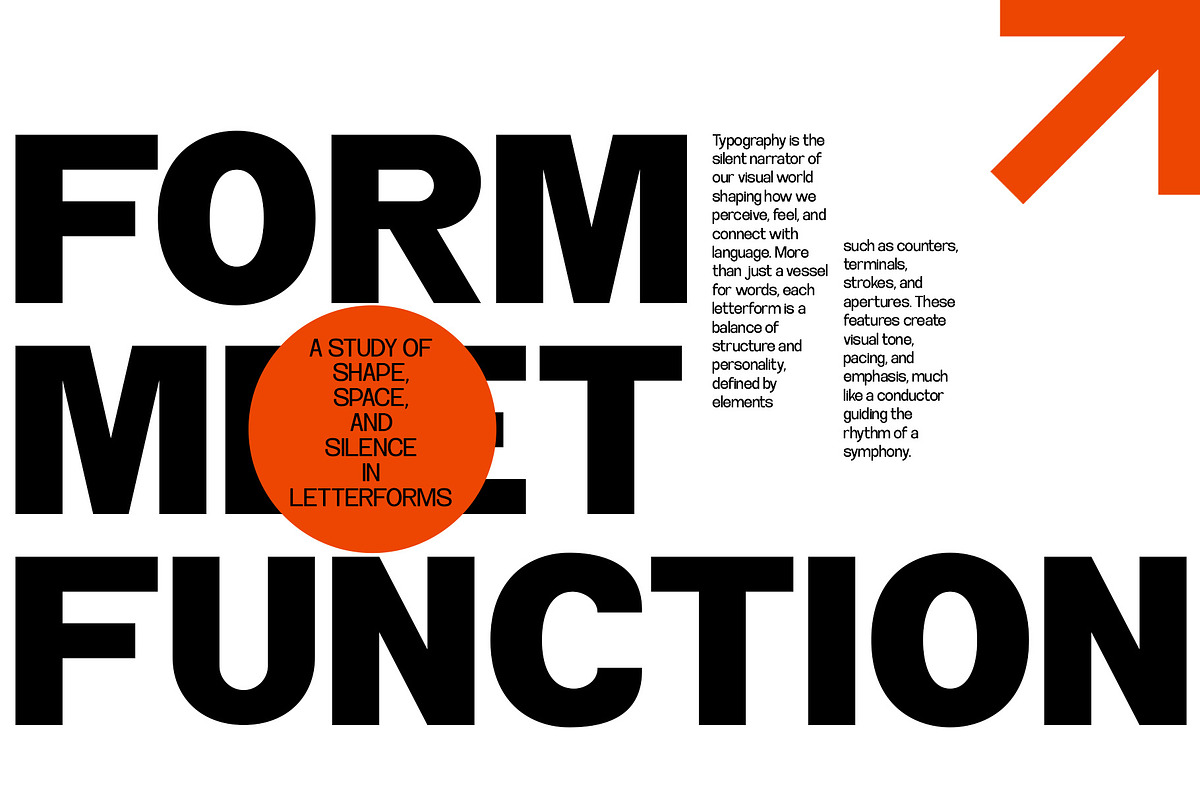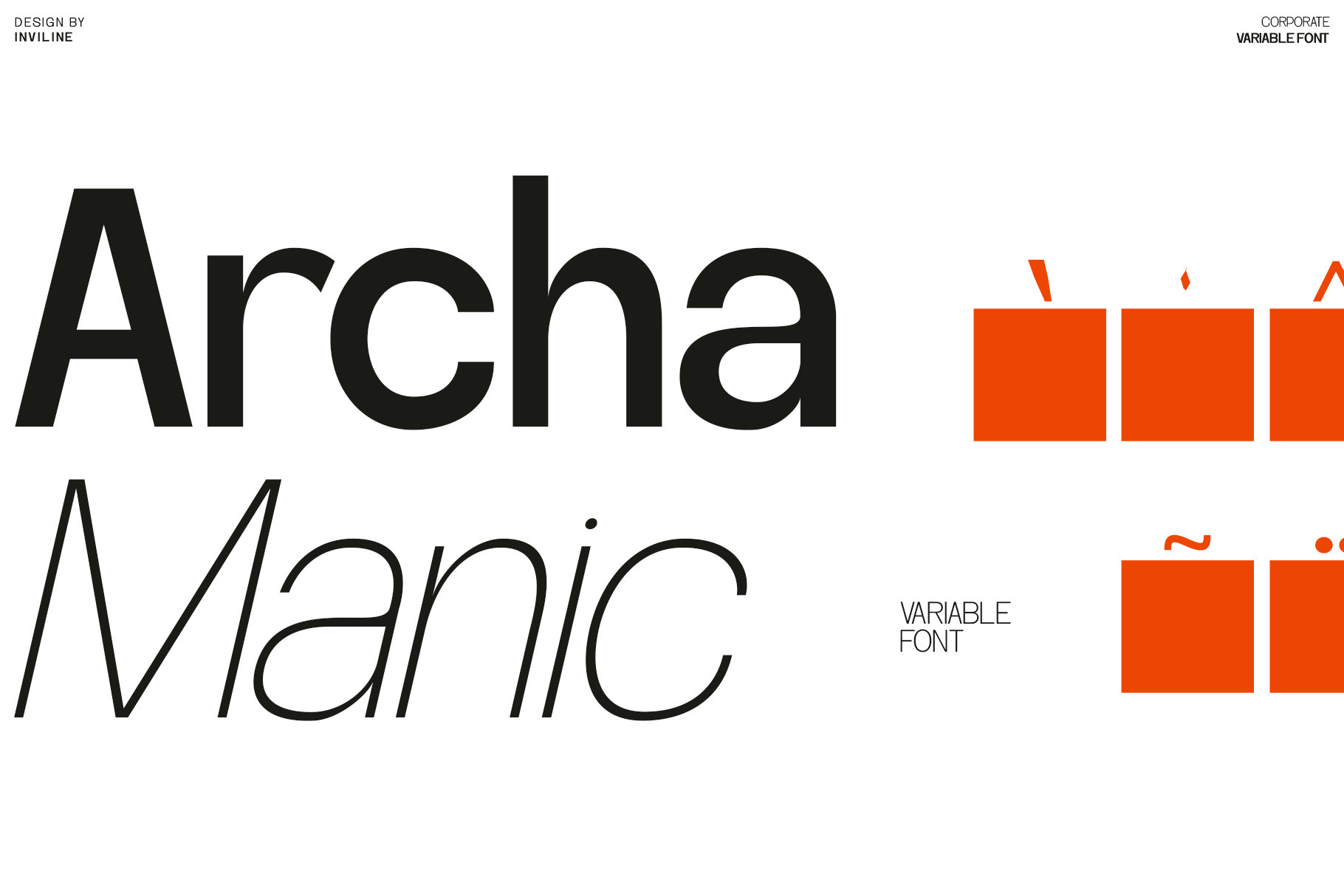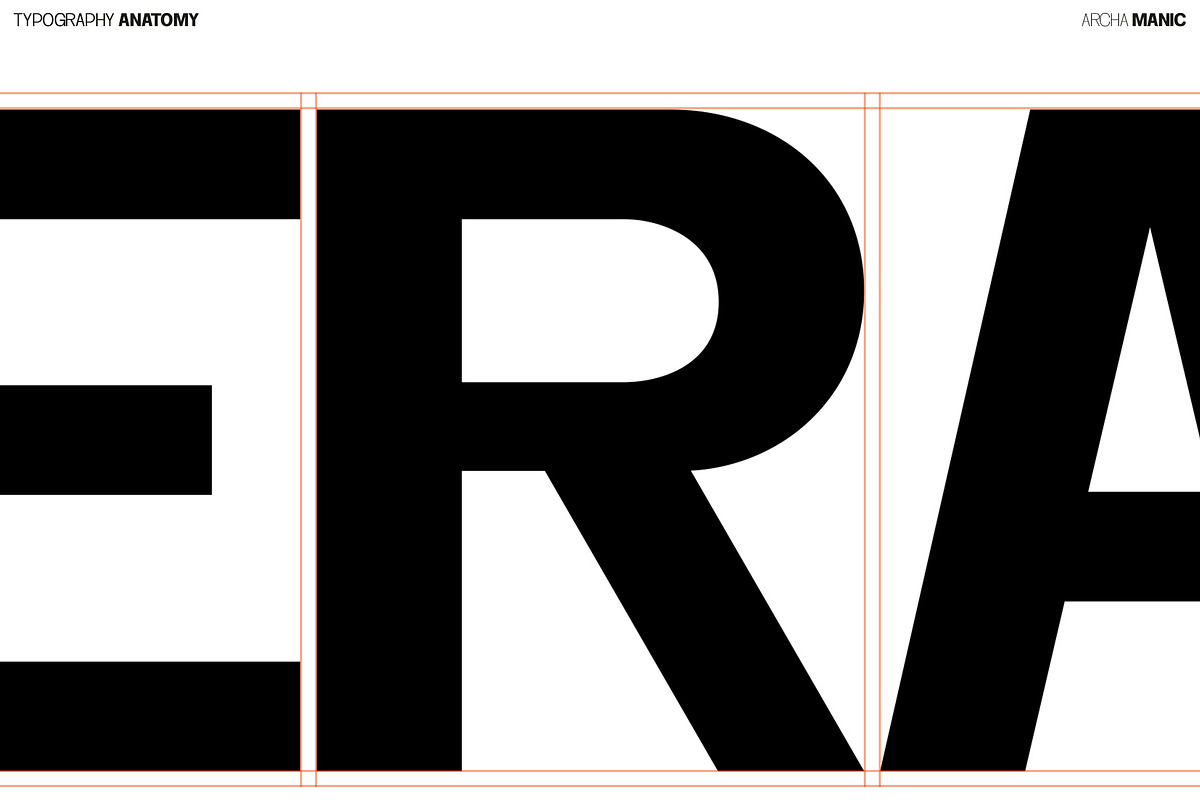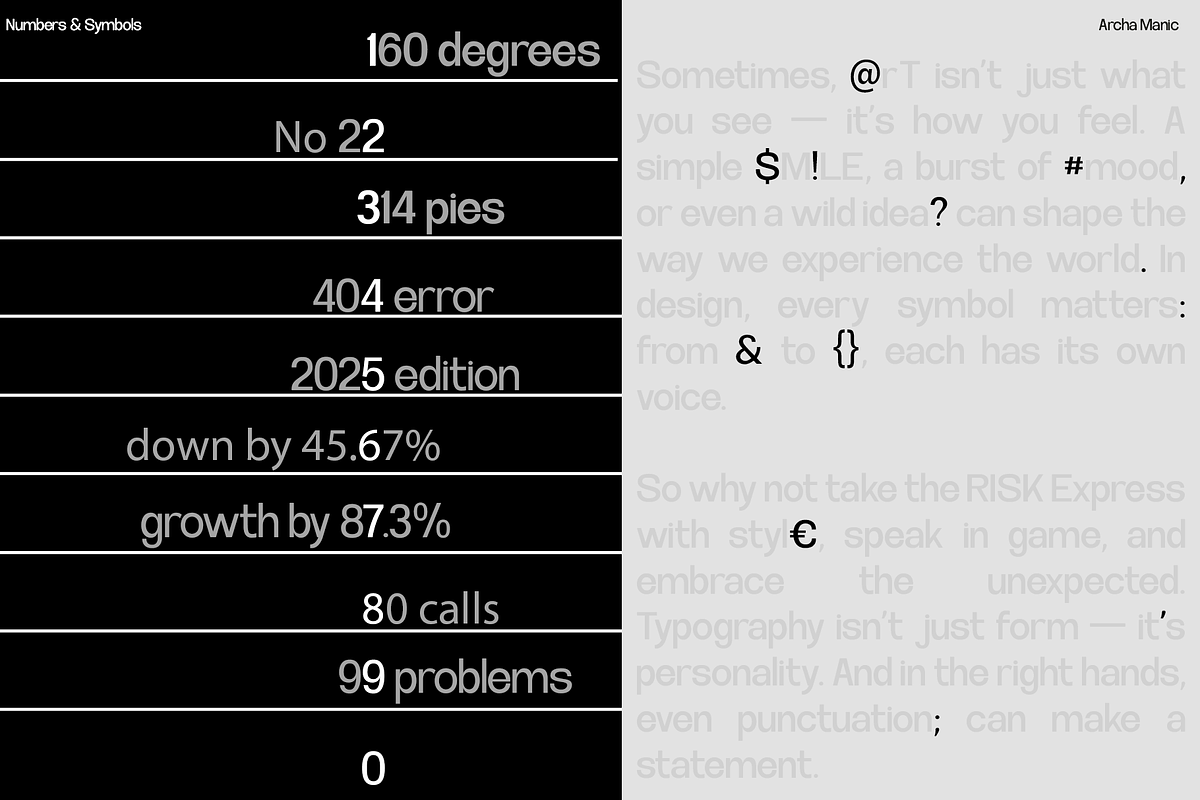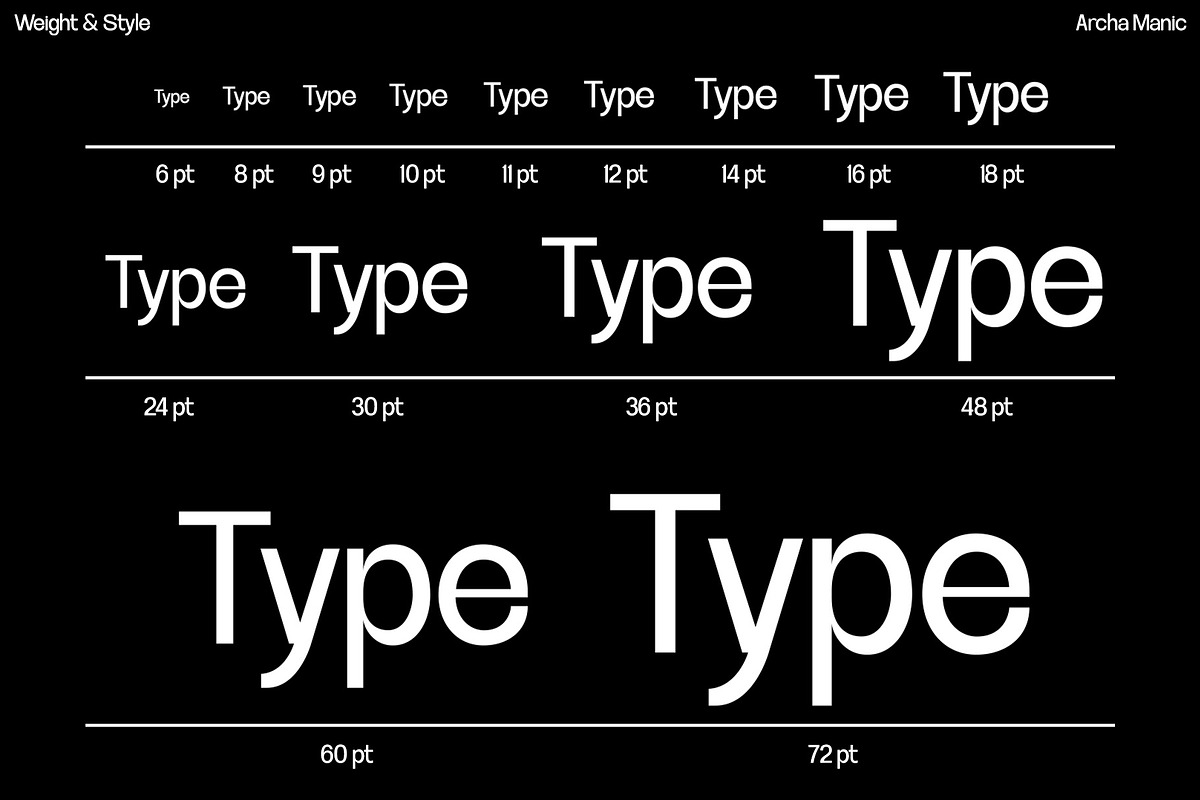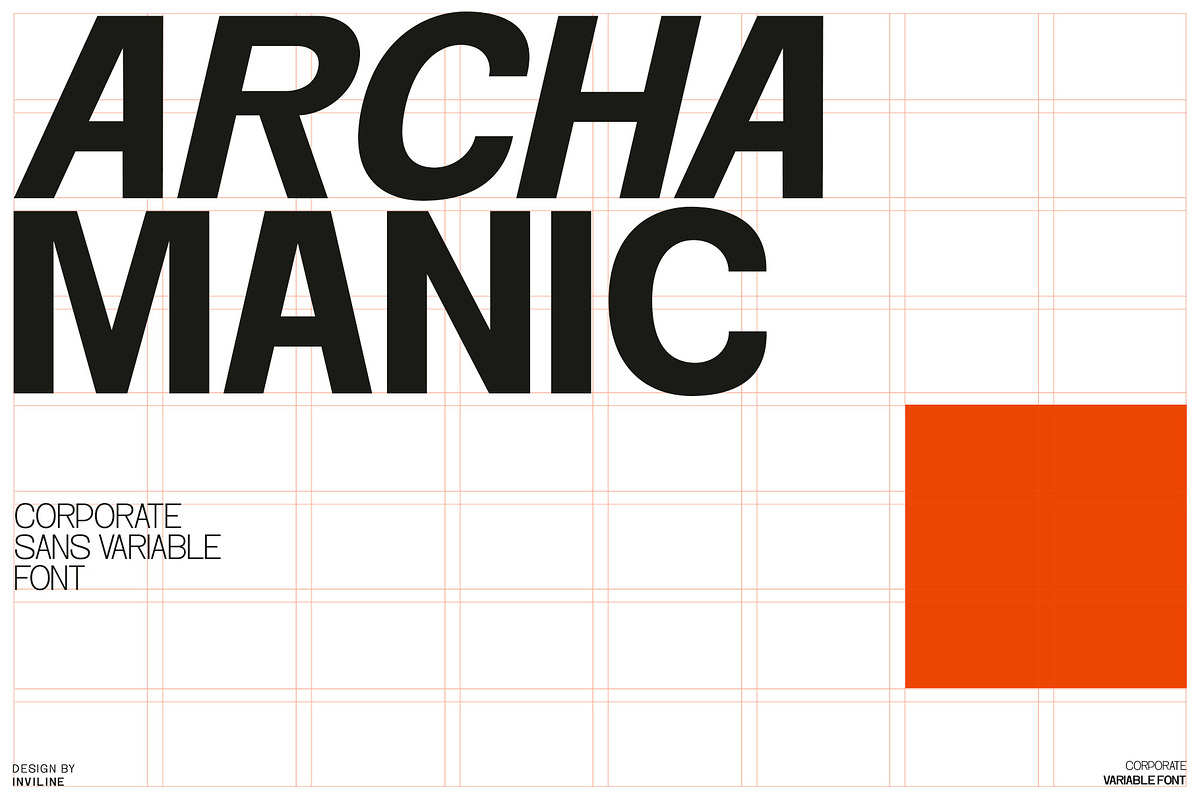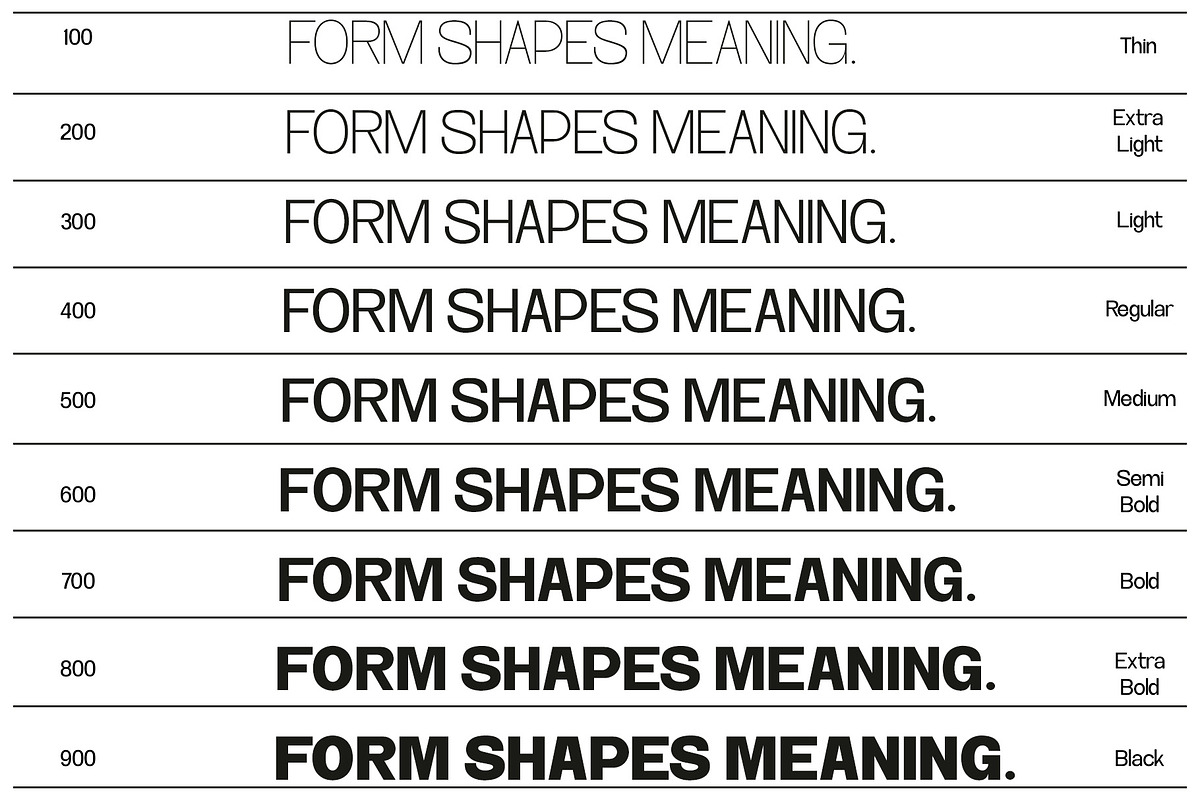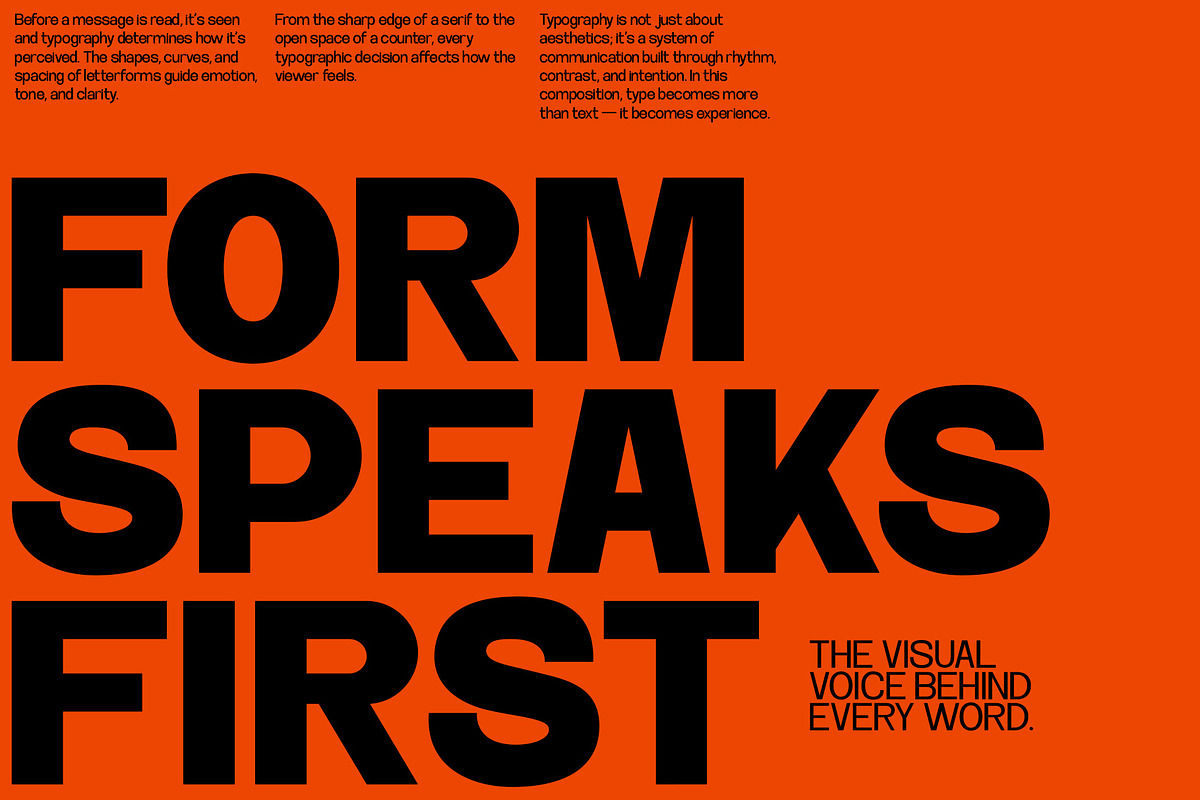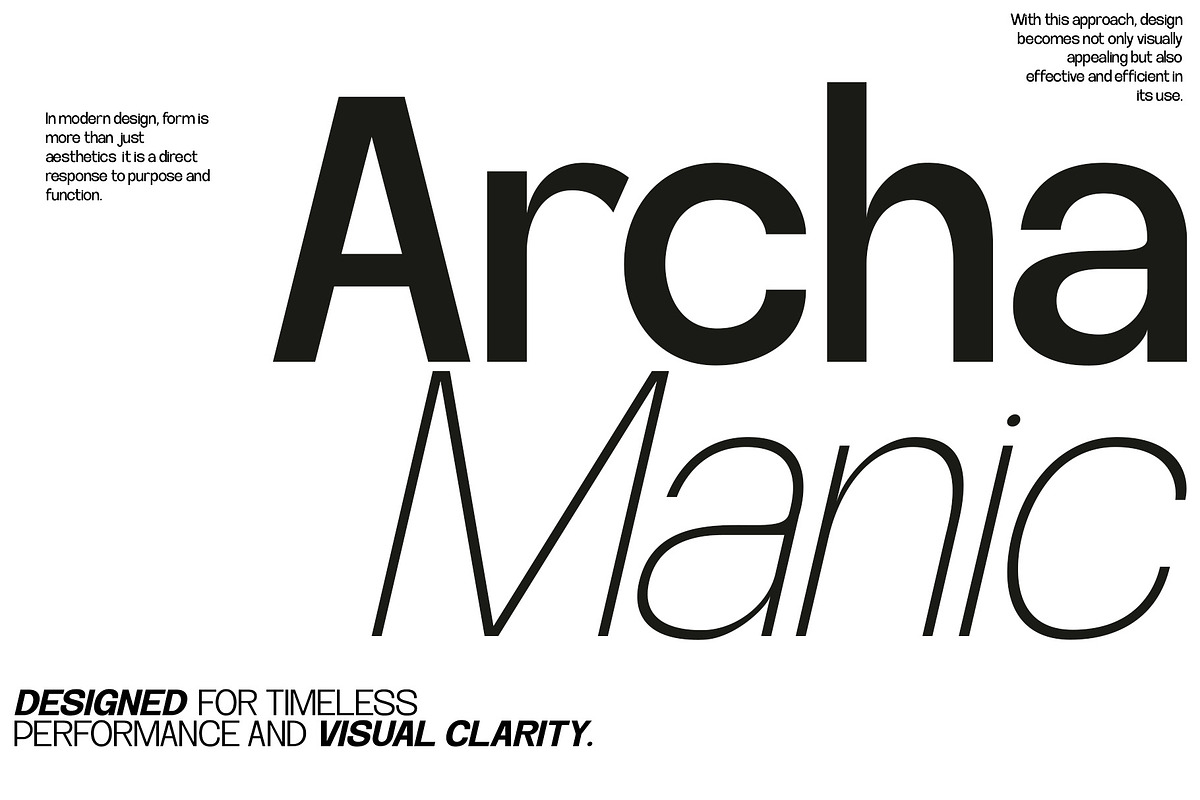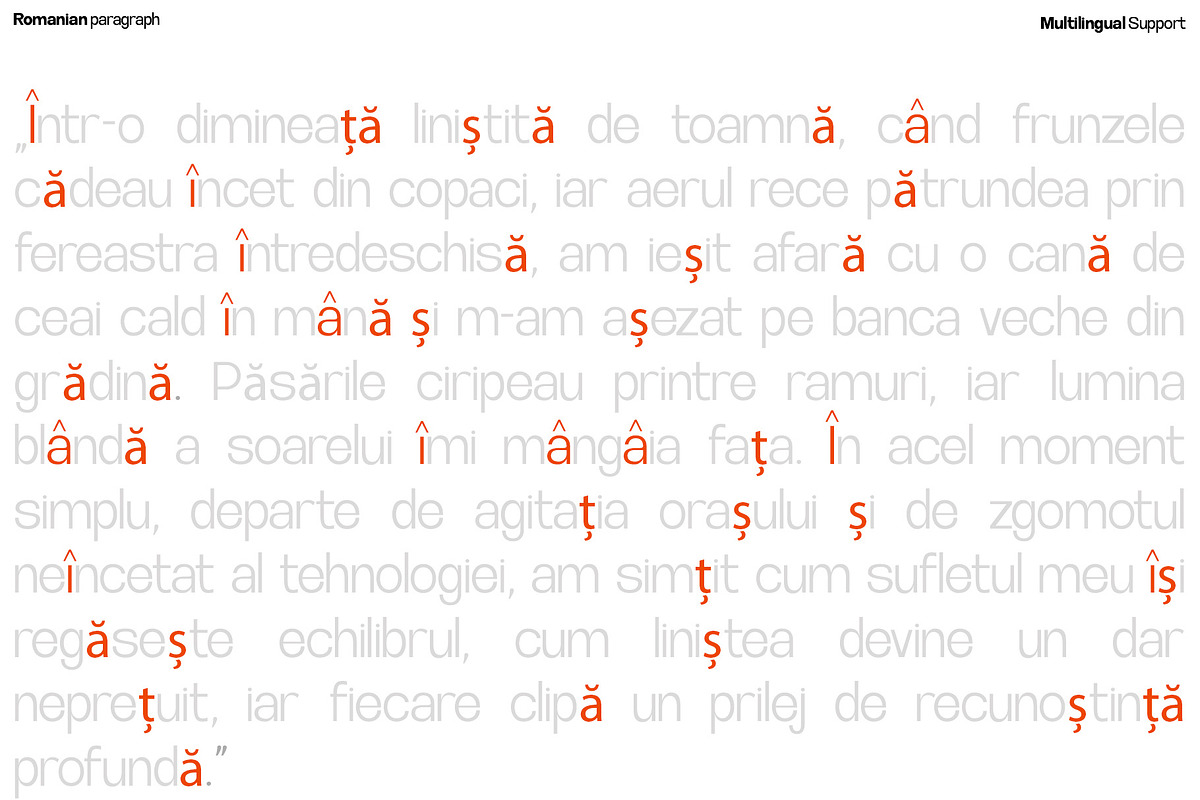
Archa Manic - Variable Sans Font
Archa Manic is a clean and structured variable sans serif typeface designed for clarity, confidence, and contemporary communication. Its balanced proportions, neutral construction, and flexible weight range create a professional typographic system suitable for both corporate and creative applications.
Inspired by modern editorial design, architectural graphics, and international corporate typography, Archa Manic delivers a polished visual voice without feeling overly rigid or generic.
Overview
Archa Manic combines precise geometric construction with subtle humanist details. Its open letterforms, smooth curves, and controlled spacing support clear readability across headlines, brand identities, presentations, and digital interfaces.
The variable font system allows designers to adjust the available weight range from lighter, refined typography to bold and impactful display text. This flexibility makes Archa Manic suitable for building complete typographic hierarchies within one coordinated font family.
Use lighter settings for elegant editorial compositions and supporting information, or heavier settings for logos, posters, titles, and prominent campaign messages.
Archa Manic variable sans serif font
Contemporary corporate sans serif design
Variable font functionality
Flexible adjustable weight range
Clean and structured letterforms
Balanced geometric proportions
Neutral yet recognizable personality
Complete numerals
Standard symbols and punctuation
Strong readability across multiple sizes
Suitable for display and supporting typography
Effective for print and digital applications
Designed for professional typographic hierarchies
Works well with grid-based layouts
Easy to pair with serif, script, and experimental fonts
Suitable for branding, editorial, UI, and presentation design
Stylistic Alternates: no dedicated stylistic alternate characters are clearly confirmed in the supplied preview
Ligature Pairs: the following 18 ligatures are not confirmed in the supplied preview: st, br, cr, ct, fr, ist, op, or, ox, th, Tr, tt, wn, ff, fi, fl, ffi, ft
Multilingual Support: Western European characters with diacritics, including À, Á, Â, Ç, É, Ñ, Ø, Ü, and more
Ideal For / Use Cases
Corporate brand identities
Logo and wordmark design
Editorial headlines
Magazine layouts
Annual reports
Business presentations
Architecture portfolios
Creative studio branding
Technology companies
Startup identities
Website typography
Mobile application interfaces
UI and UX design
Advertising campaigns
Product packaging
Brochure layouts
Posters and banners
Signage systems
Wayfinding design
Portfolio presentations
Product labels
Exhibition graphics
Contemporary publications
Professional visual systems
Use lighter weights for refined editorial layouts, captions, and supporting text. Medium settings work well for branding and interface typography, while heavier weights create strong headlines, logos, posters, and campaign statements.
Pair Archa Manic with an expressive serif or handwritten script for contrast, or use it independently to build a clean and consistent corporate typography system.